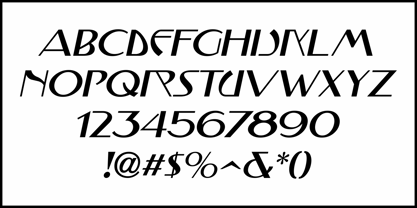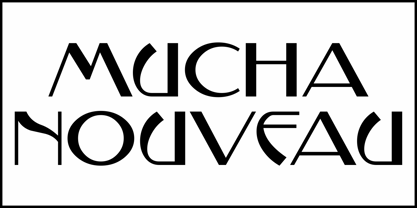
Mucha Nouveau JNL
by Jeff Levine
Fromme's Calendar for 1899 featured the artwork and unique lettering of Alphonse Mucha, considered by many to be the father of the Art Nouveau movement.
This unique sans serif type design is now available as Mucha Nouveau JNL in both regular and oblique versions.